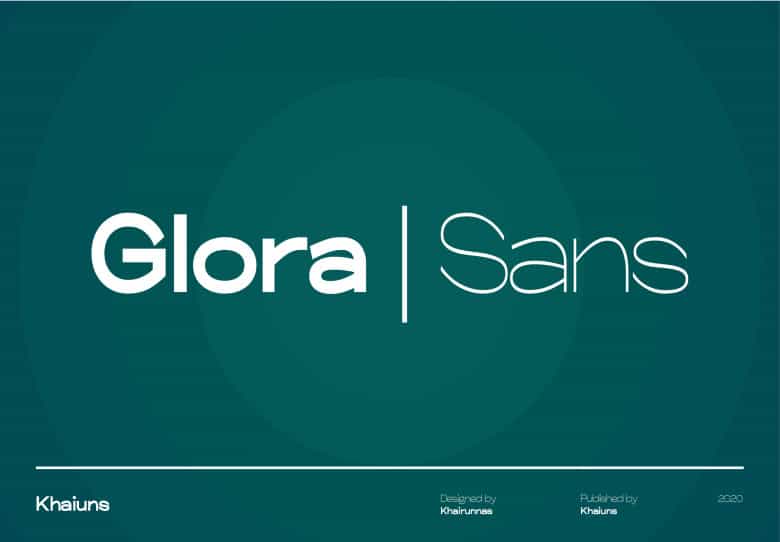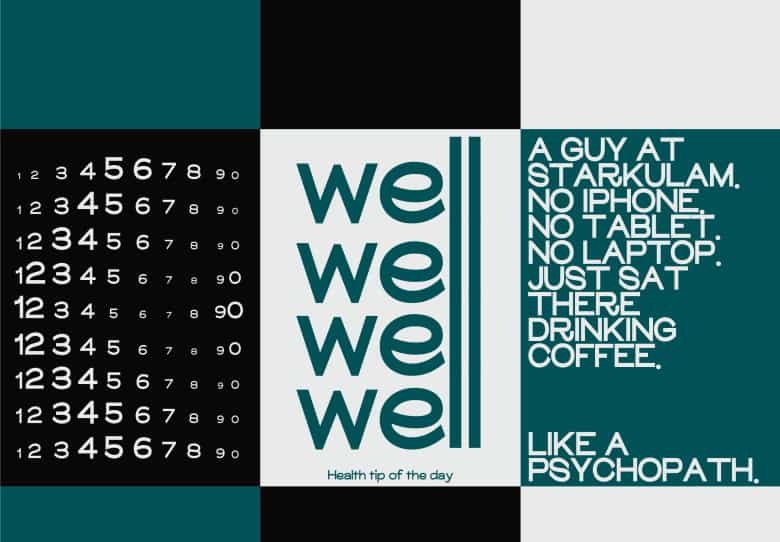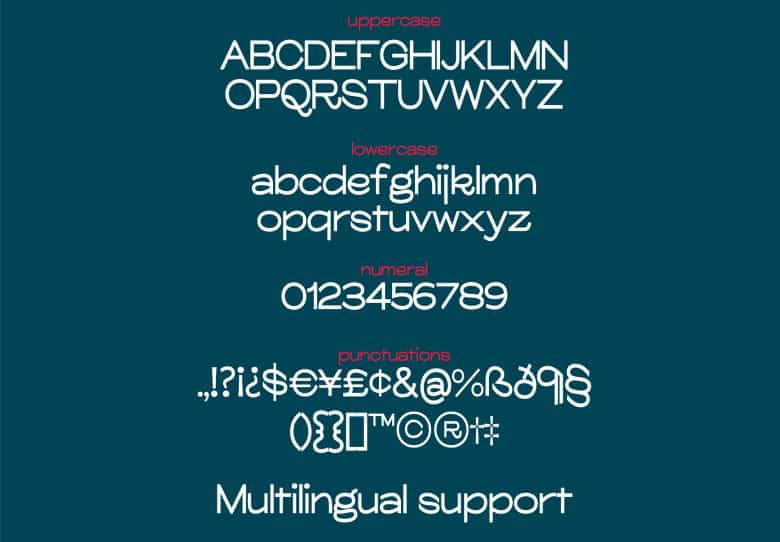
Glora is a stylish contemporary sans serif font with slightly rounded corners and soft, but clear lines – a font for Workup made to be enjoyed. Glora has good set of well constructed lowercase and uppercase letters that are versatile and can be used for many different styles for projects.